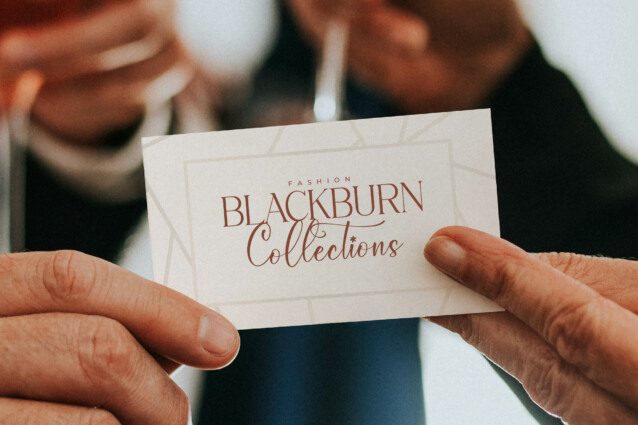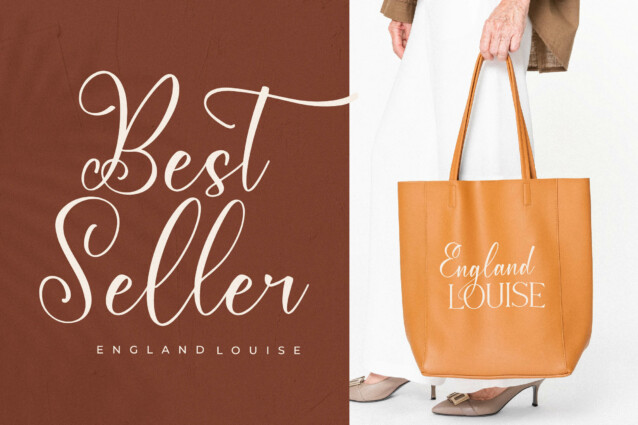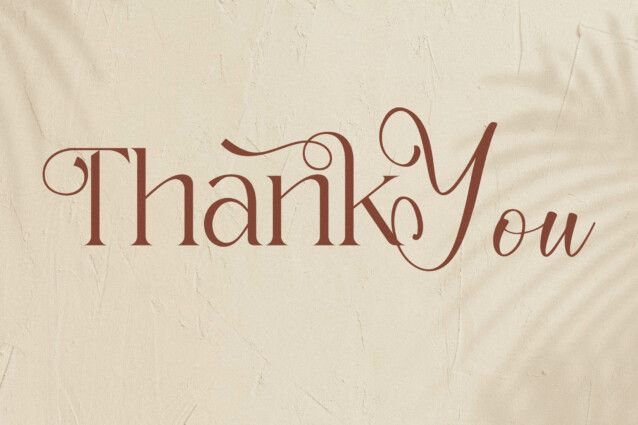
Qerginas Frenchstyle Font is a serif and script typeface that has own unique style & modern look. This typeface is perfect for an elegant & luxury logo, book or movie title design, fashion brand, magazine, clothes, lettering, quotes, and so much more.